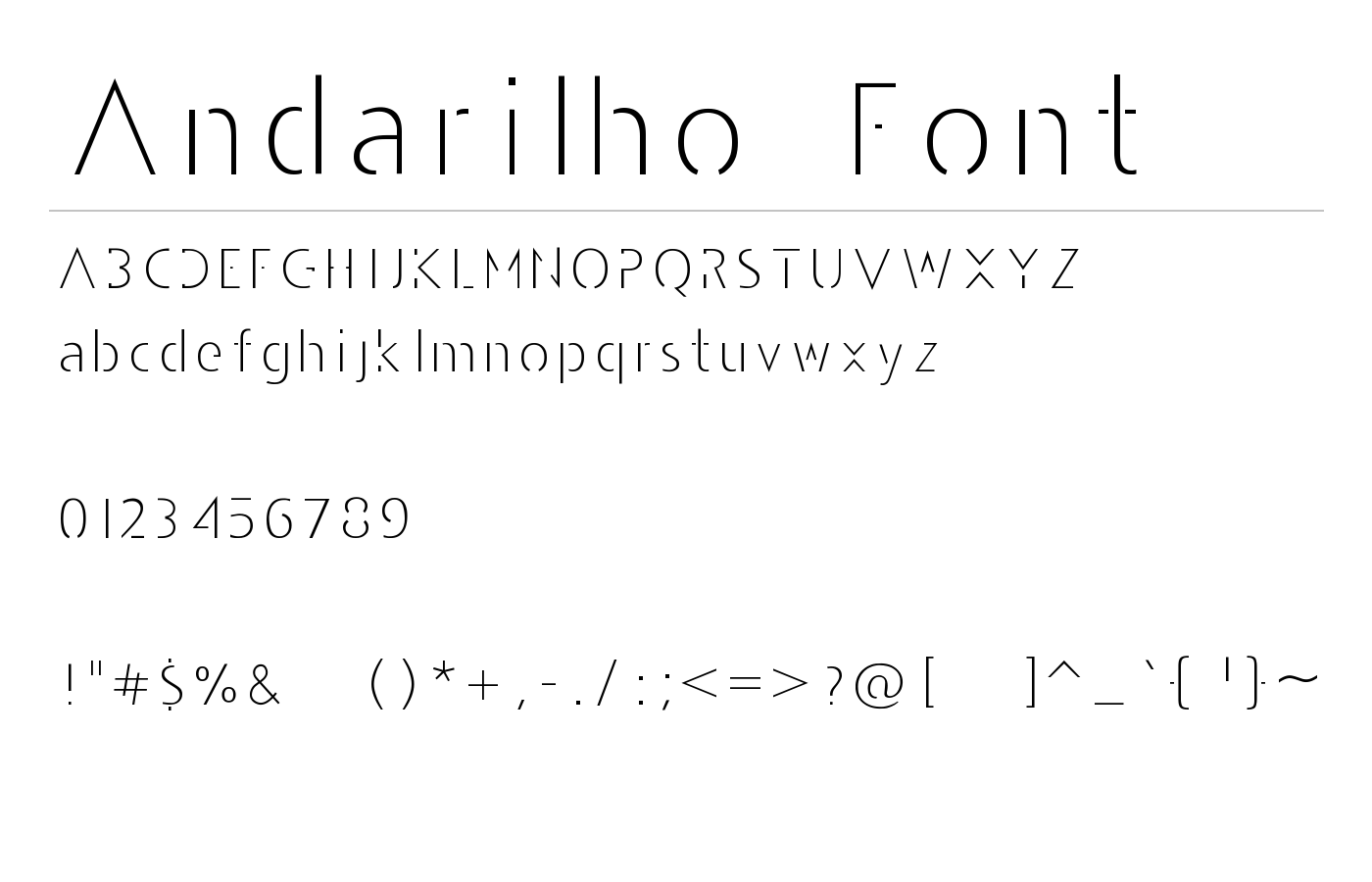
Andarilho is a sleek, modern sans serif font characterized by its thin strokes and geometric shapes, offering a minimalist and airy feel. Its tall, narrow letterforms with unique angular cuts give it a futuristic and elegant personality, making it ideal for contemporary branding, editorial headlines, and stylish digital interfaces. This font works well where a clean, sophisticated, and distinctive look is desired without sacrificing readability.
Andarilho Font
About Andarilho Font